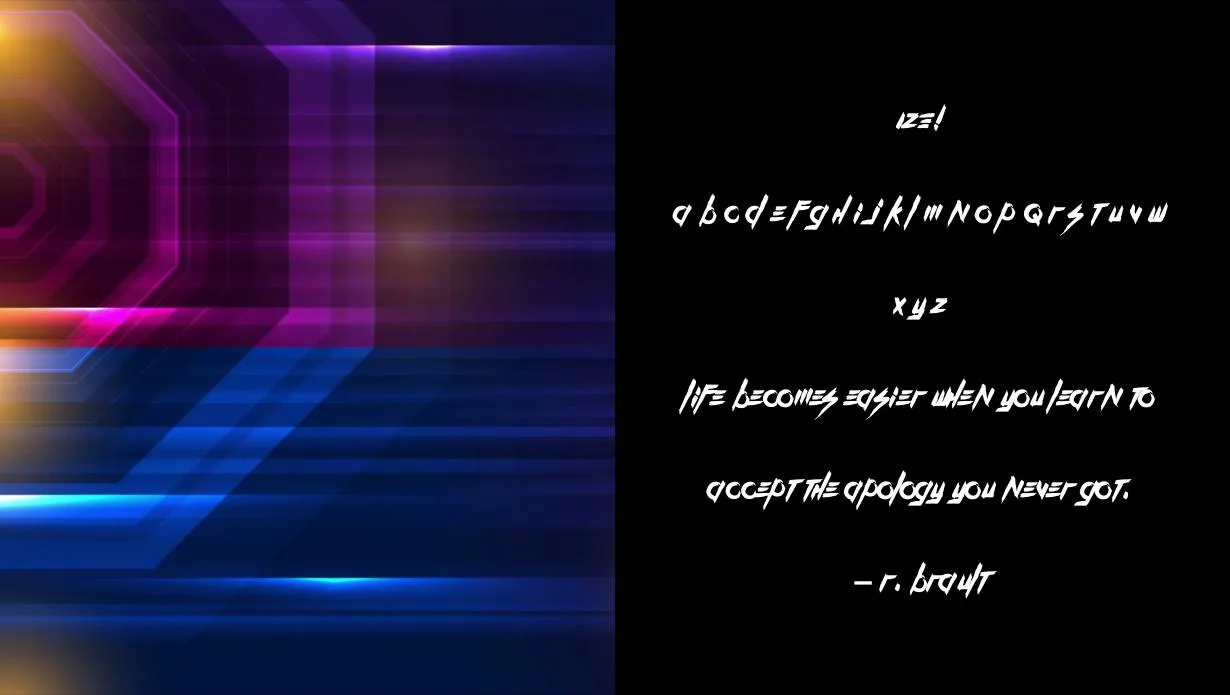
Kill the Noise Font is like the bold beat of a rock concert. Each letter carries a rebellious style as if they’re ready to crank up the volume. When you use Kill the Noise Font, your writing becomes like a powerful guitar riff, making every word stand out with a dynamic and intense presence.
It’s like the energy of a mosh pit, giving your words a bold and rebellious vibe. Choose to Kill the Noise Font when you want your writing to have the intense spirit of a rock anthem.